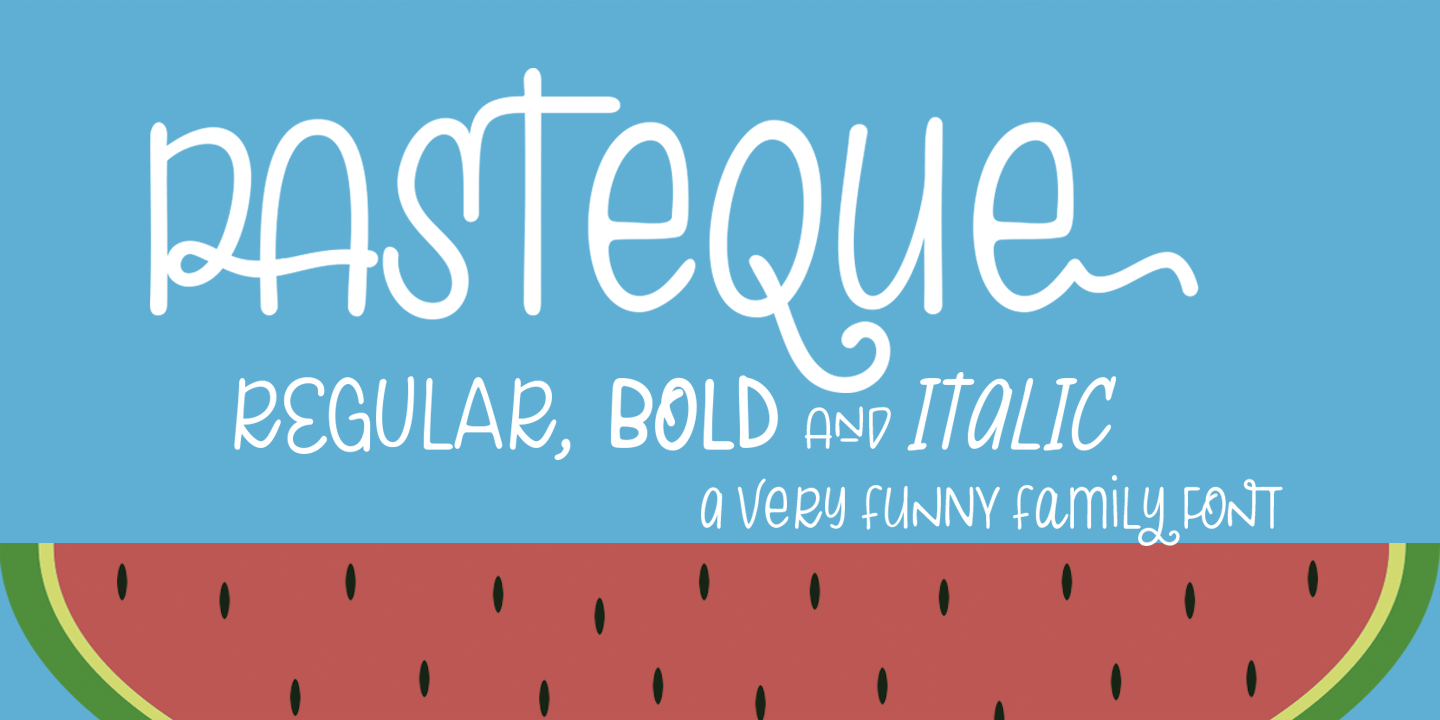
Pasteque Font is perfect for summer festival posters, fruit juice packaging, children's book illustrations, tropical vacation branding, ice cream shop signage, fresh produce marketing, playful app interfaces, and vibrant social media campaigns.
Pasteque Font is exciting because it captures the refreshing spirit and juicy sweetness of summer fruits, translating these delightful qualities into typography that instantly evokes feelings of joy, freshness, and playful energy. This typeface brings the vibrant essence of watermelon season into visual communications, making every design feel like a celebration of life's sweetest moments.
The Pasteque Font family includes Regular, Bold, Light, and Rounded variations, along with decorative fruit-inspired alternates and playful ligatures. Each family member maintains the distinctive fresh and cheerful aesthetic while providing designers with comprehensive options for creating dynamic and engaging typographic compositions.
Pasteque Font stands out in the display typography world due to its ability to instantly communicate freshness, vitality, and natural goodness. The font's organic curves and cheerful proportions make it particularly effective for brands in the food and beverage industry seeking to emphasize natural ingredients, health benefits, and sensory pleasure. Its playful yet readable character creates immediate positive associations with audiences of all ages.
The versatile nature of Pasteque Font makes it exceptionally suitable for lifestyle and wellness brands targeting health-conscious consumers. Organic food companies, juice bars, farmers markets, wellness centers, and family-oriented businesses frequently choose this font to convey their commitment to natural living and joyful experiences. The font's ability to suggest both health and happiness makes it ideal for positive brand messaging.
Design professionals appreciate Pasteque Font Free Download for its excellent legibility combined with distinctive personality. The font's balanced letterforms ensure clear communication while maintaining its playful character, making it particularly suitable for packaging design where both information clarity and shelf appeal are crucial. This balance makes it invaluable for consumer product applications.
The seasonal appeal of Pasteque Font extends beyond summer themes to encompass year-round freshness and vitality messaging. Its bright character and organic warmth naturally complement spring launches, healthy lifestyle campaigns, and children's product designs. This versatility makes it particularly valuable for brands seeking to maintain consistent energy and positivity across seasonal marketing initiatives.
Contemporary consumer brands increasingly value typography that can convey authenticity and natural goodness while remaining accessible and engaging. Pasteque Font delivers this combination through its fresh aesthetic and approachable personality, making it suitable for both premium organic brands and mainstream consumer products seeking to emphasize their natural qualities and positive impact.